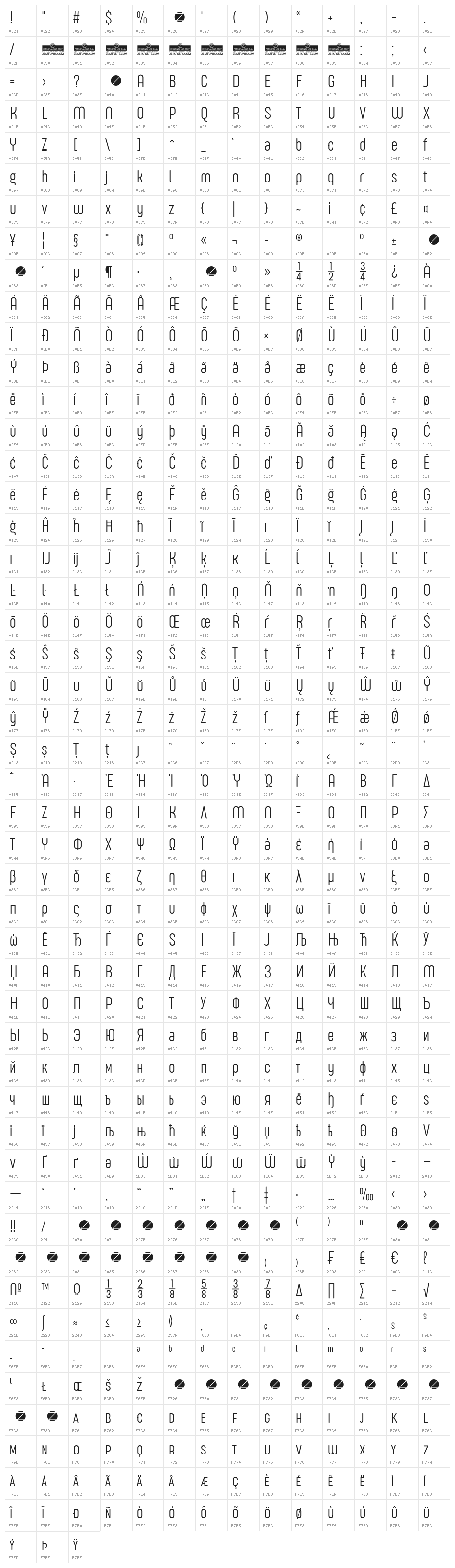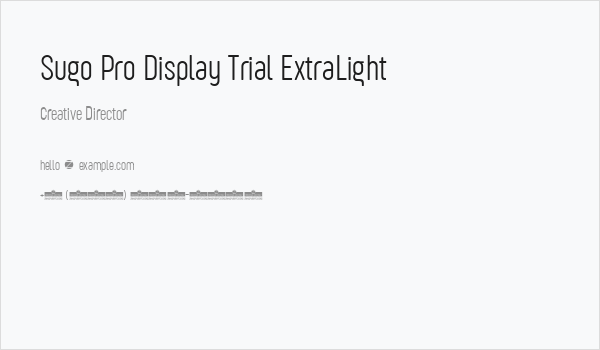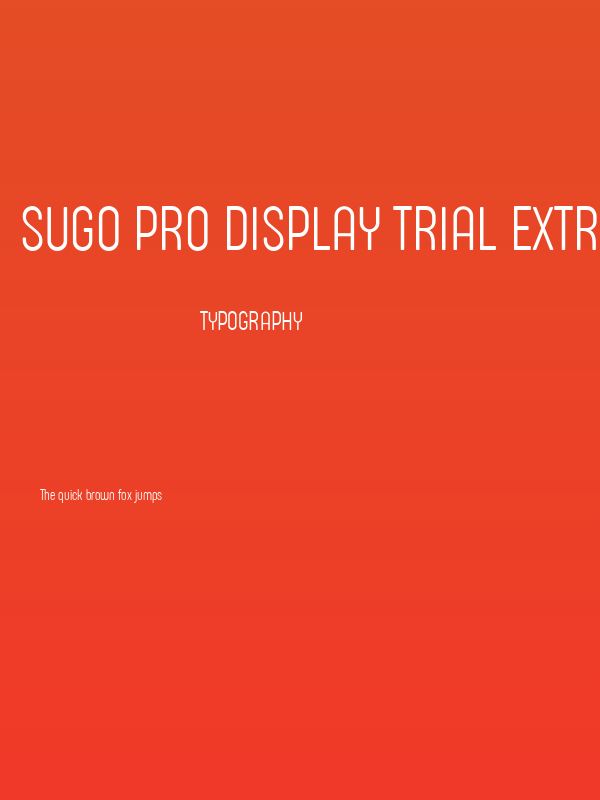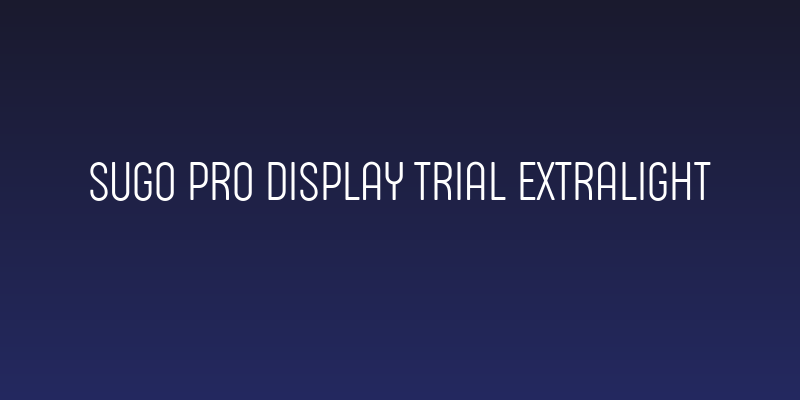
Sugo Pro Display Trial ExtraLight Font
Sugo Pro Display Trial ExtraLight Description
This font features a sleek, modern design with elongated letterforms and a clean, minimalist aesthetic. The characters are tall and narrow, giving it a distinctive and contemporary look. The strokes are consistent in weight, contributing to a uniform appearance across all characters. The uppercase and lowercase letters maintain a harmonious balance, while the numerals and special characters complement the overall style. This font is ideal for projects that require a modern and professional touch, such as branding, advertising, and digital media.
| Proposed Projects | Ideal for branding, advertising, digital media, and modern design projects. |